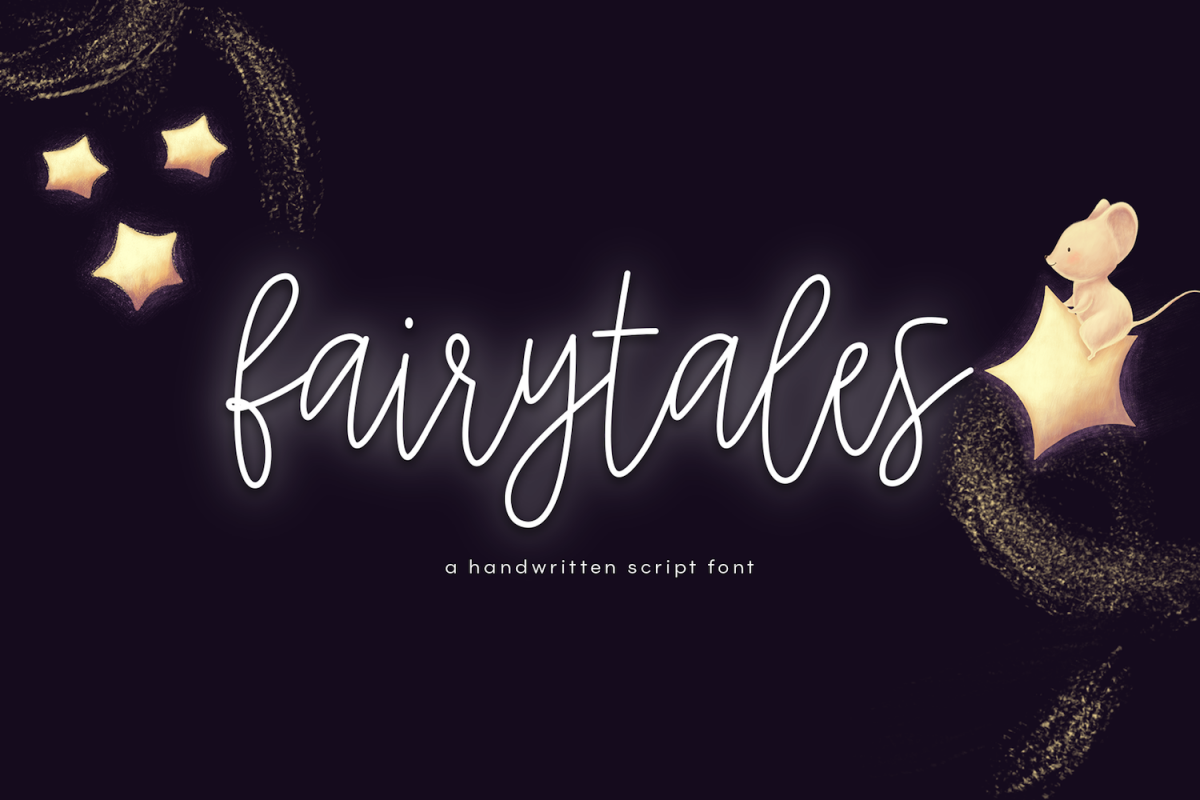
Fairytales - A Handwritten Script Font
Fairytales
Fairytales is an elegant handwritten script font.
This font is perfect for quotes, headings, designs, logos, invitations and more!
This font *does* include accent characters.